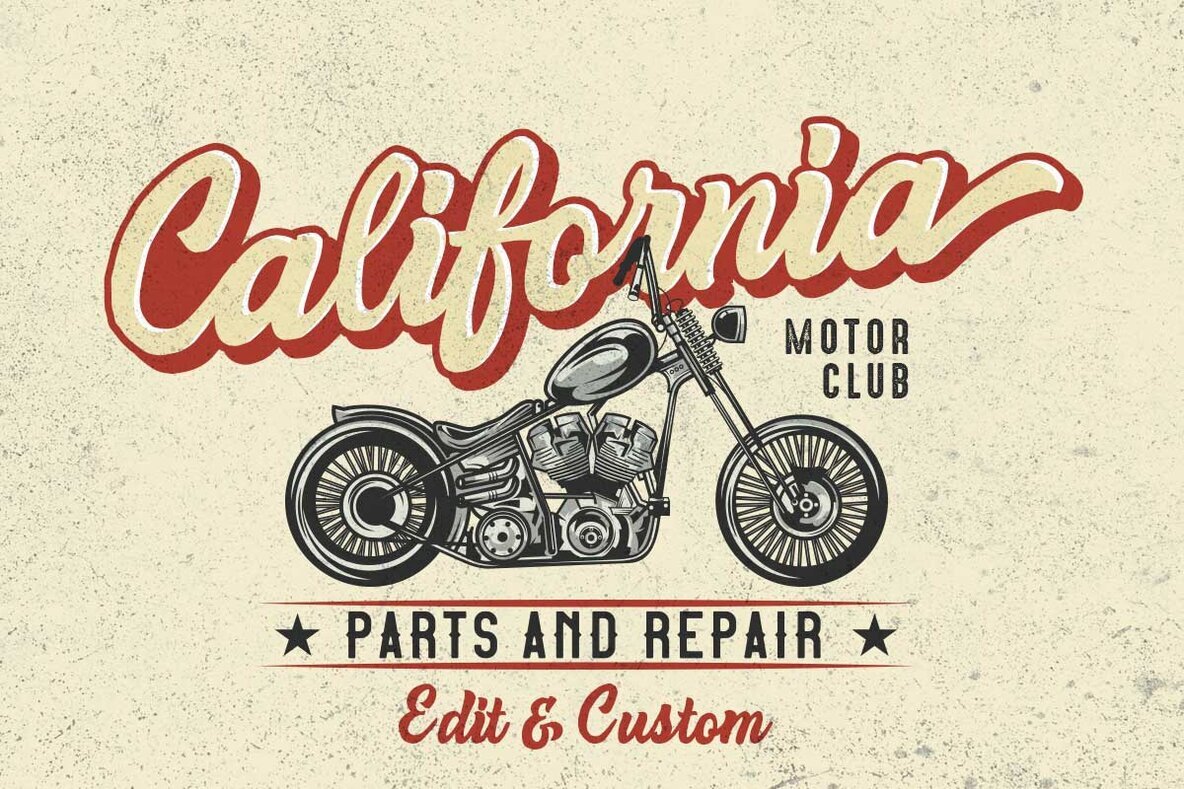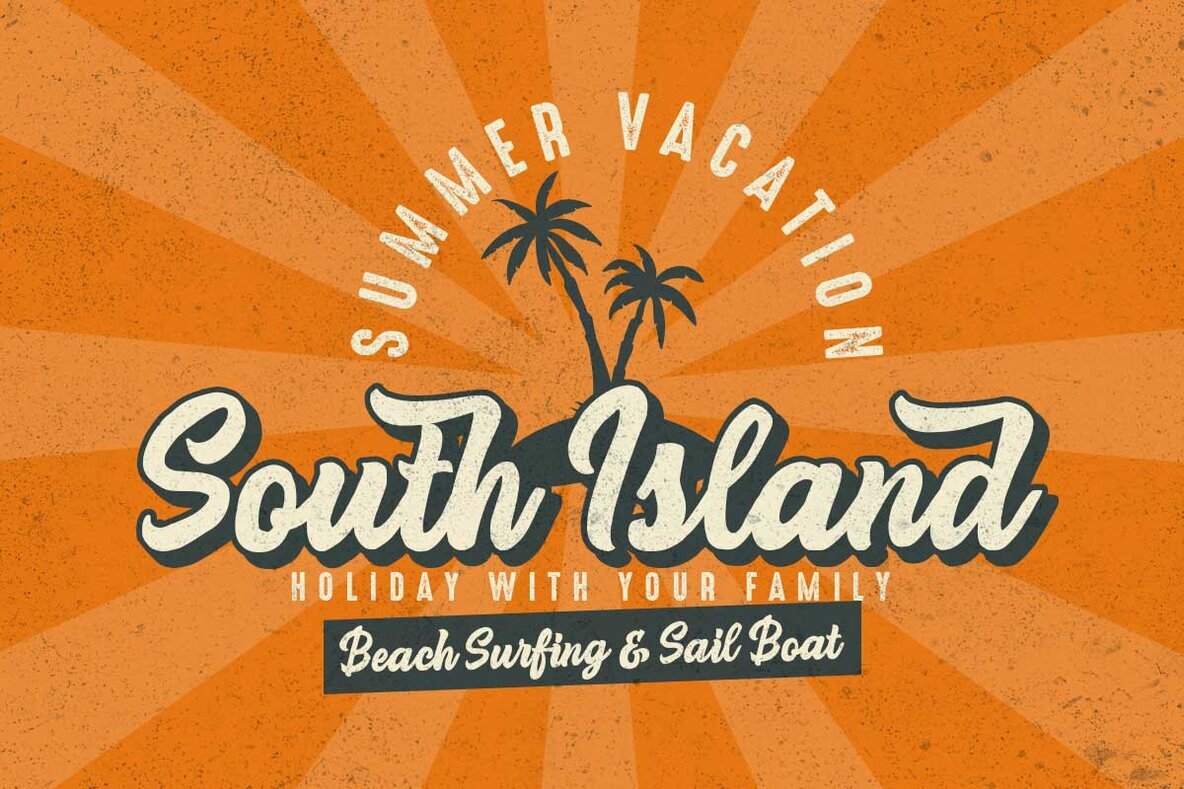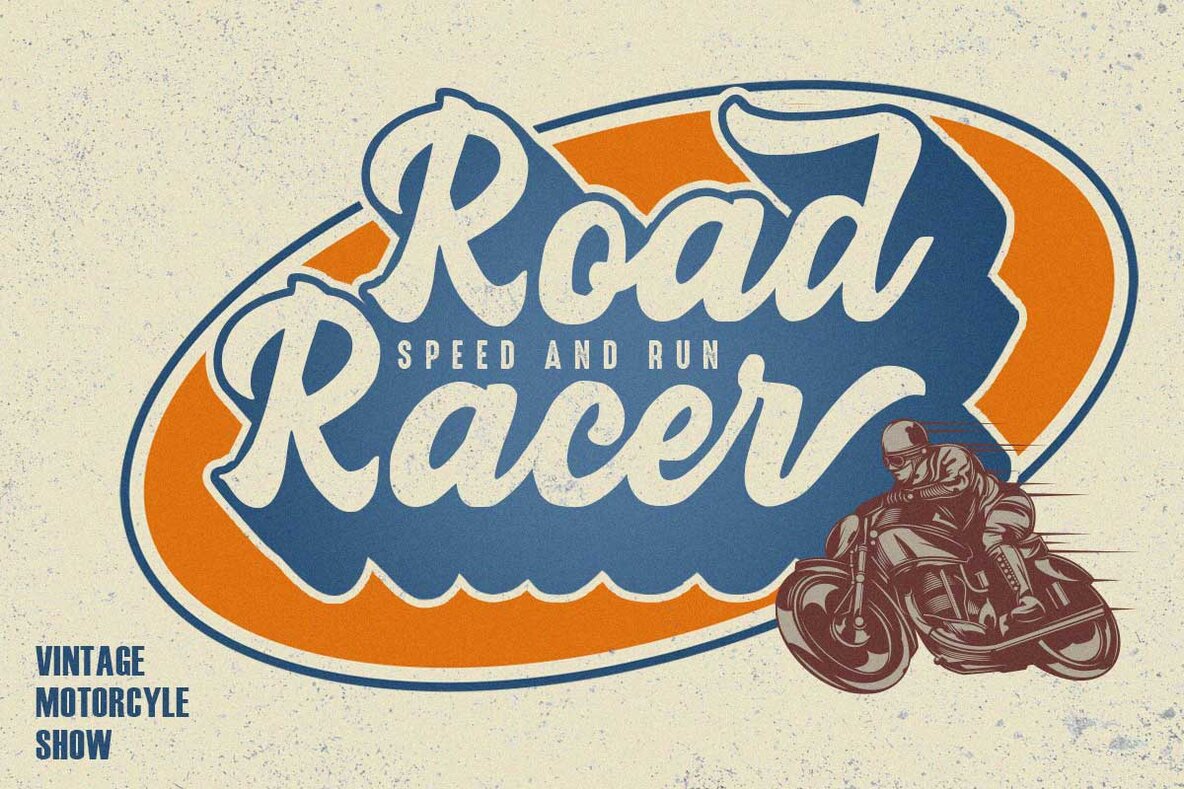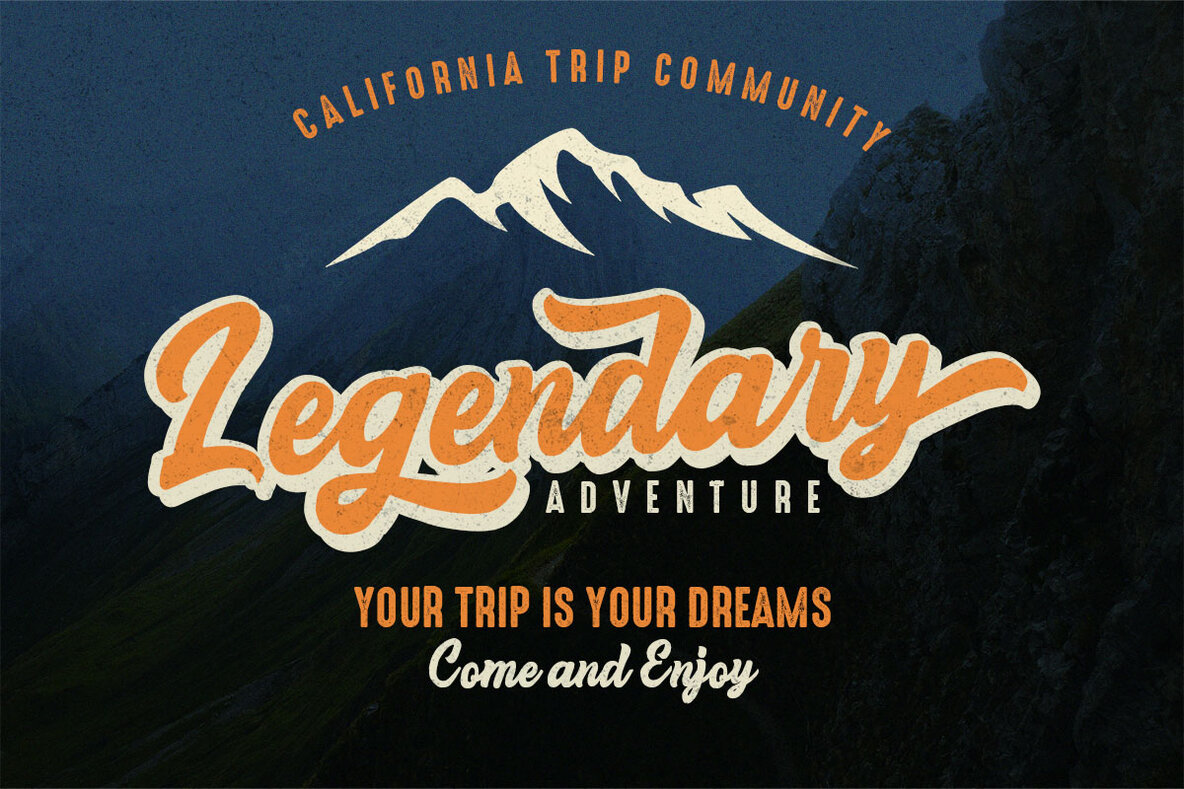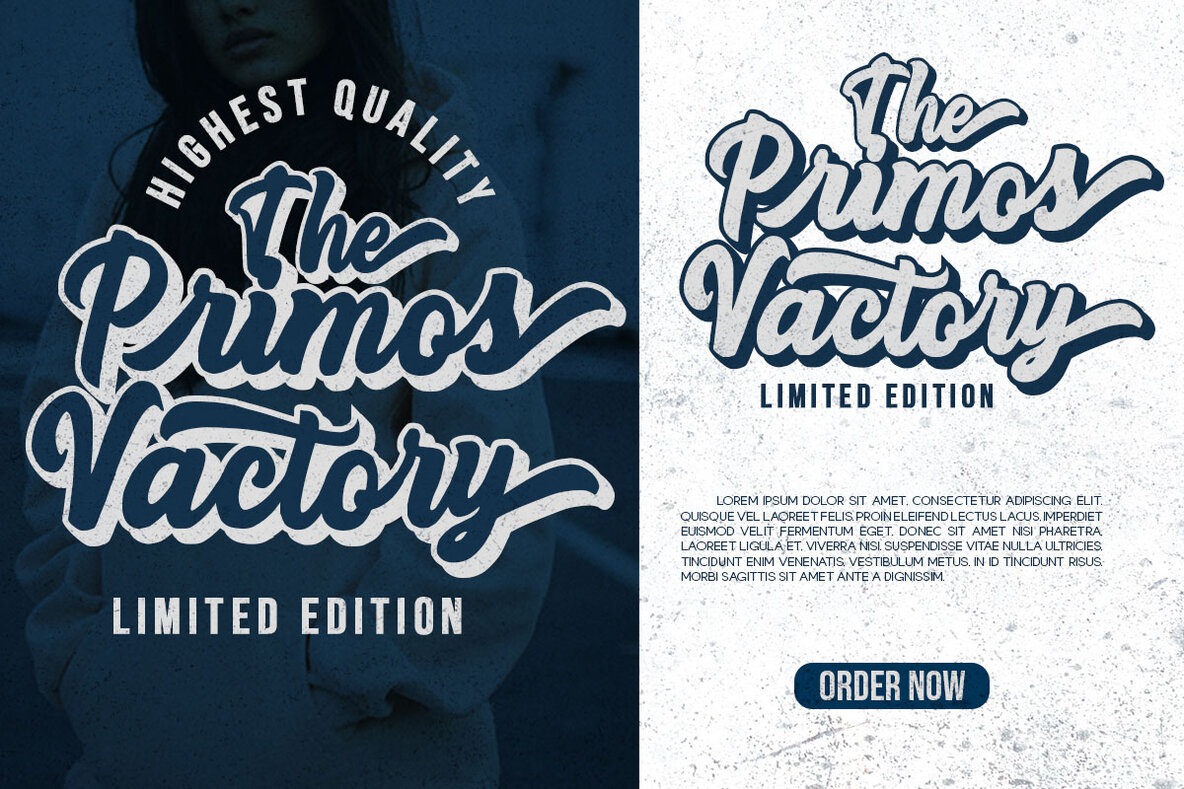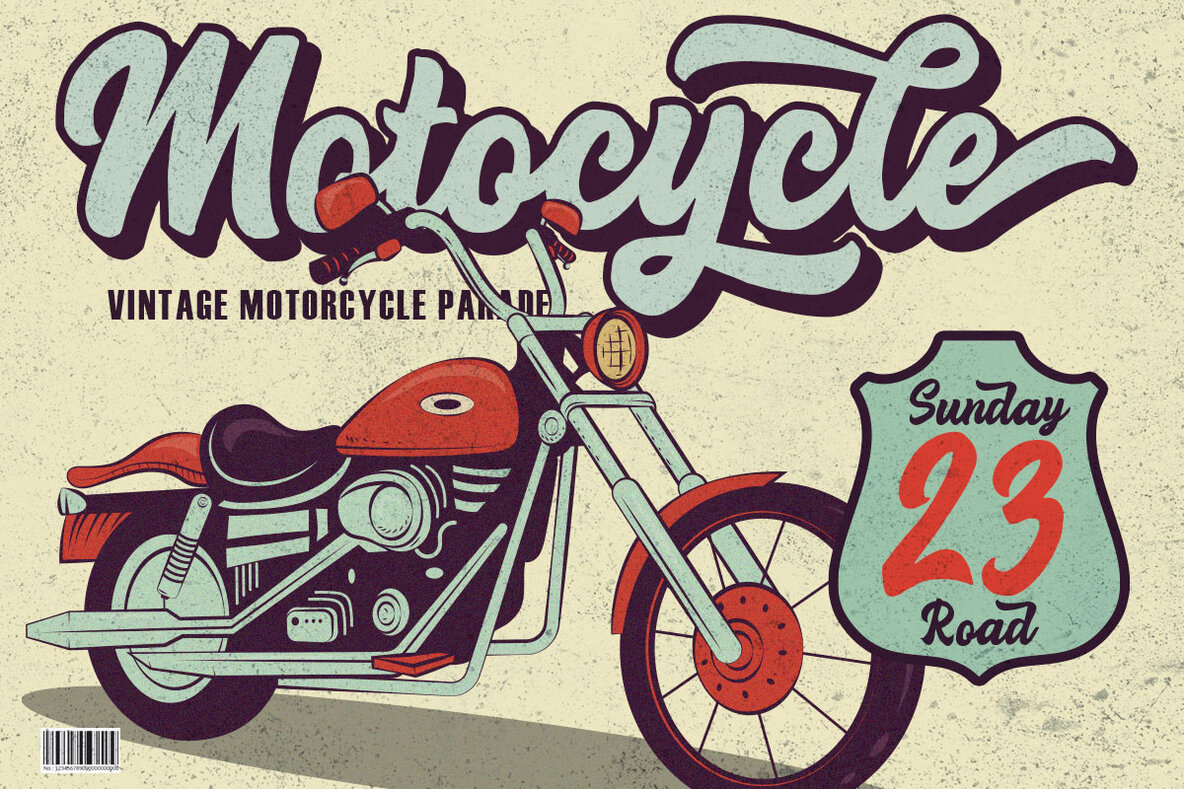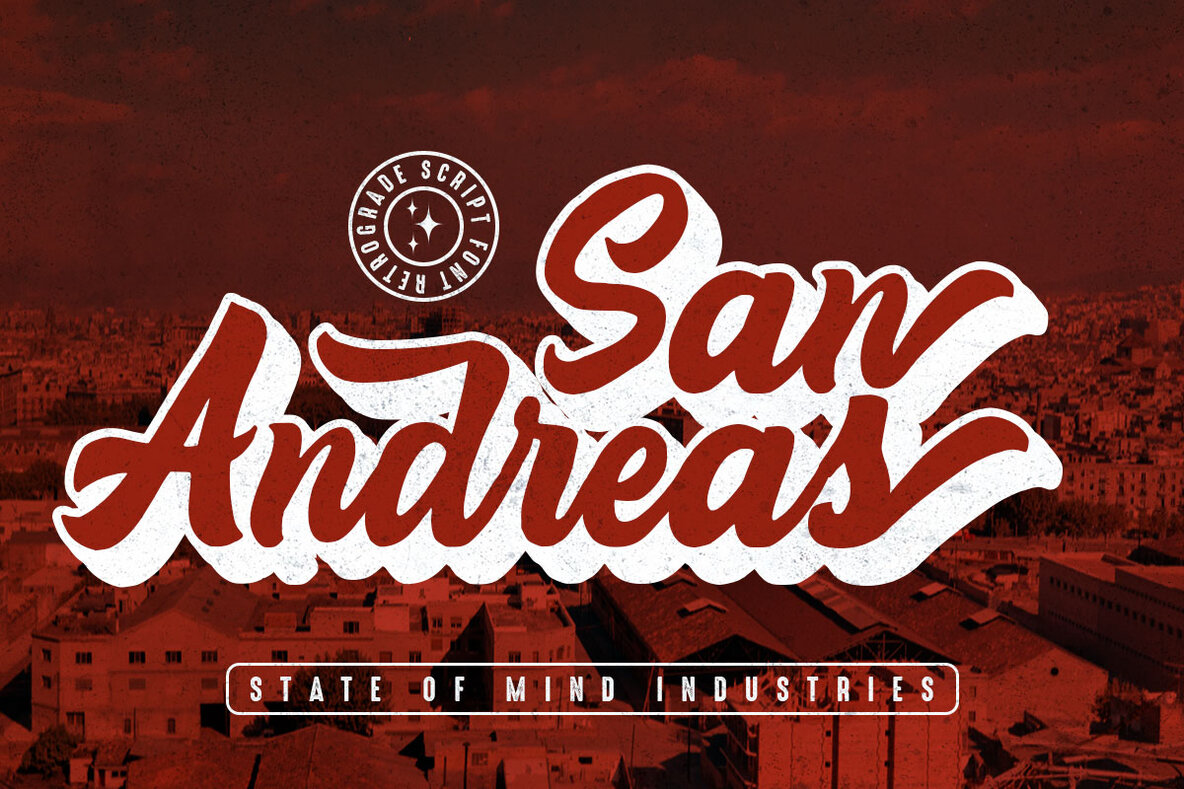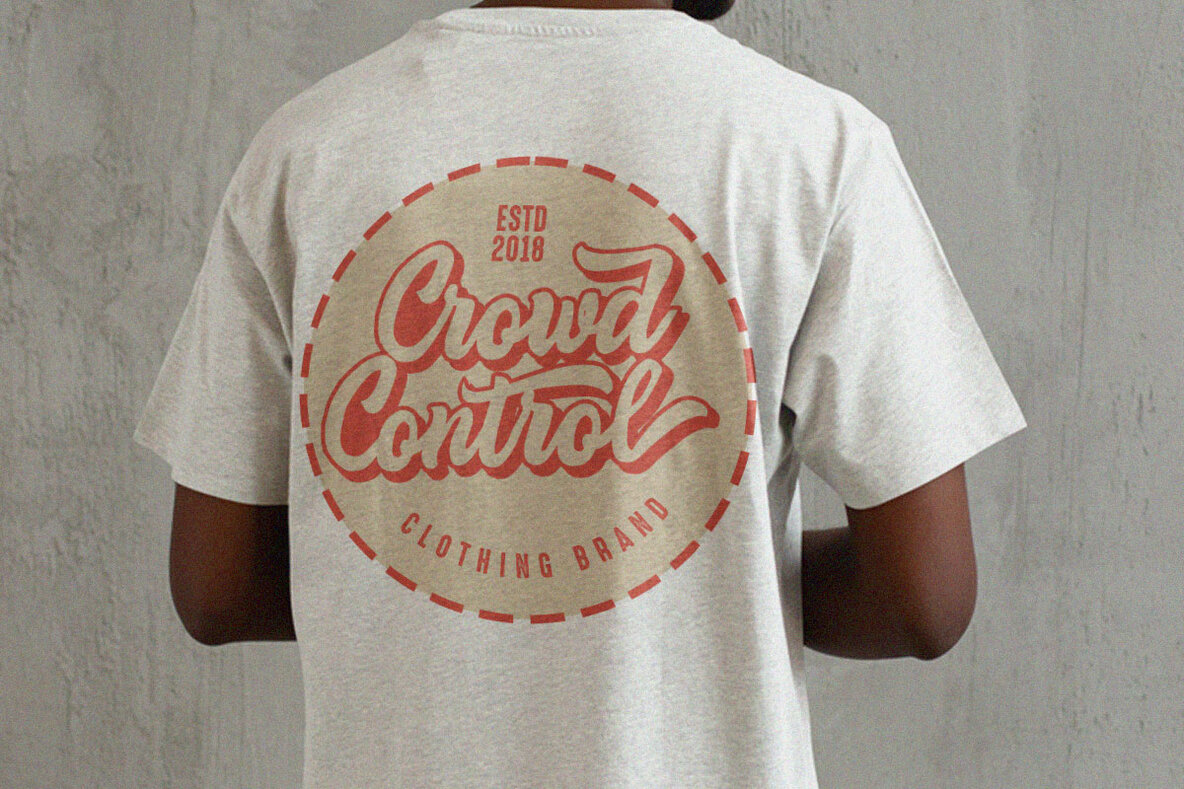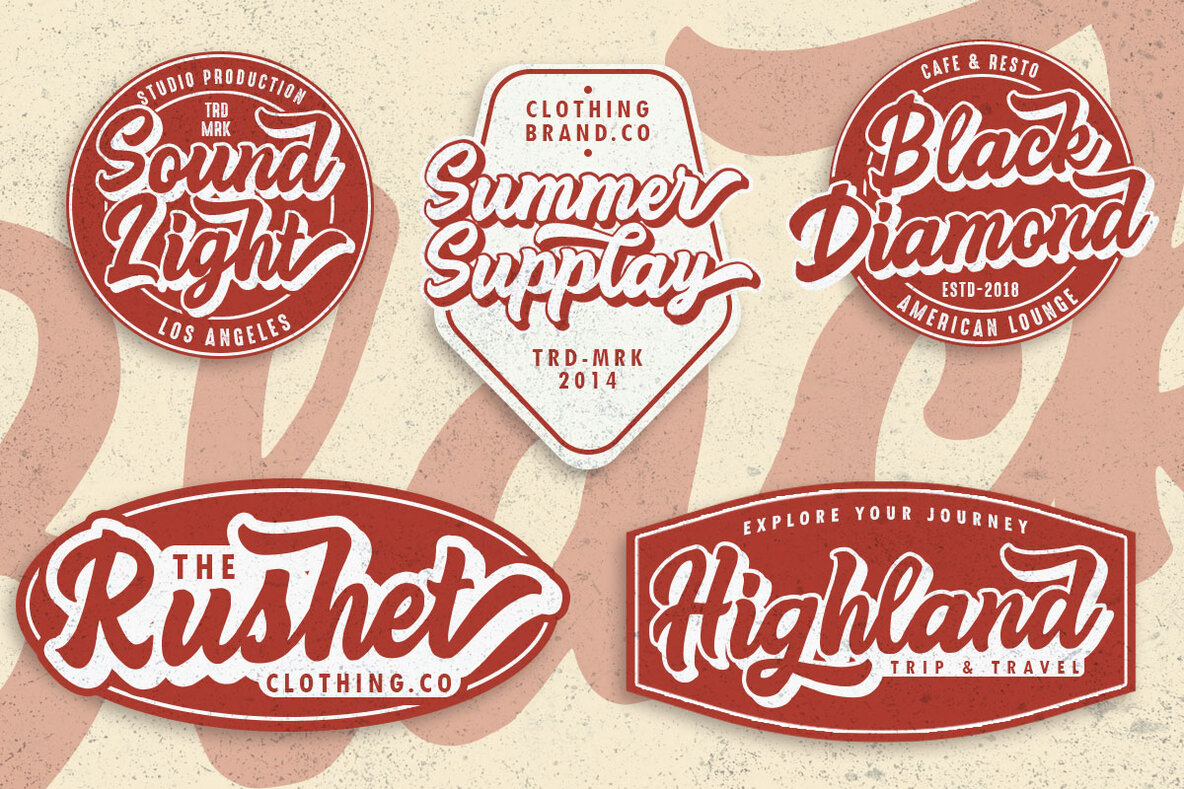
Youthgate Font
Introducing Youthgate Script, a curvy typeface meticulously designed to exude personality and charm. Its sleek, flowing lines make it an ideal choice for logos, badges, emblems, and packaging. The typeface also comes with an Extrude Version that adds a retro feel, perfect for headlines, posters, t-shirt designs, greeting cards, and wedding invitations.
Youthgate Script includes a comprehensive character set featuring uppercase and lowercase letters, numbers, ligatures, alternates, and punctuation. Additionally, it offers multilingual support, making it versatile for various design projects. With its well-balanced and crafted structure, Youthgate Script is perfect for adding a distinctive and stylish touch to your creative work.